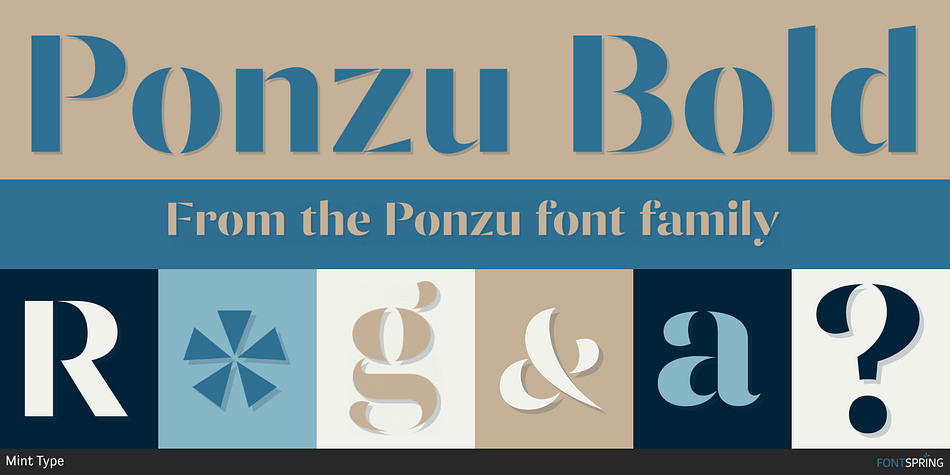
Ponzu Bold
Designed by Andriy Konstantynov, Ponzu is a display sans and stencil font family. This typeface has eighteen styles and was published by Mint Type.
Ponzu is an elegant stencil-style display sans-serif. Its shape is defined by the sharp endings created by stems that vanish in infinite contrast.
It is a hybrid typeface that features beautiful terminals typical for serif fonts. It is perfect for display use in editorial, branding, posters, screen applications etc.
Ponzu comes in 9 weights each with complimentary stylish italics. Each style supports multiple languages including Cyrillic script and is packed with OpenType features.